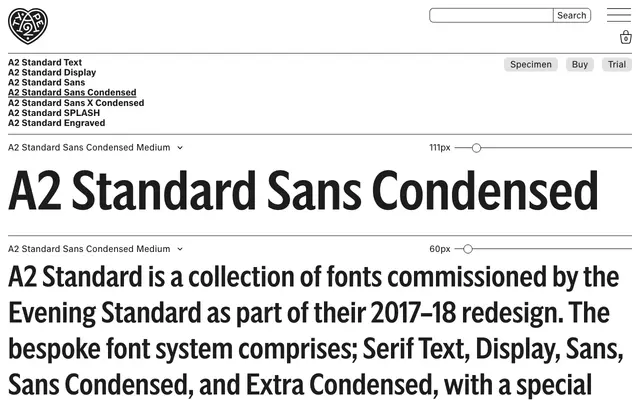
A2 Standard Sans Condensed
A condensed grotesque sans drawn for the Evening Standard's 2017–18 redesign, part of a 58-font bespoke system spanning text, display and splash weights.
Designed by A2-Type as part of the A2 Standard system commissioned by the Evening Standard for their 2017–18 overhaul, the Condensed subfamily runs seven weights from Thin to Heavy and pairs with an X Condensed variant for the tightest column and headline settings. The full system covers Serif Text, Display, Sans, Sans Condensed, Sans X Condensed and a dedicated Splash face for front pages. Built for a free daily tabloid distributed across London at 850,000 copies, the proportions and weight range reflect the demands of dense, fast-read print layouts.
A condensed grotesque sans designed as part of a bespoke newspaper type system, with multiple width variants suited to tabloid headline and text use.